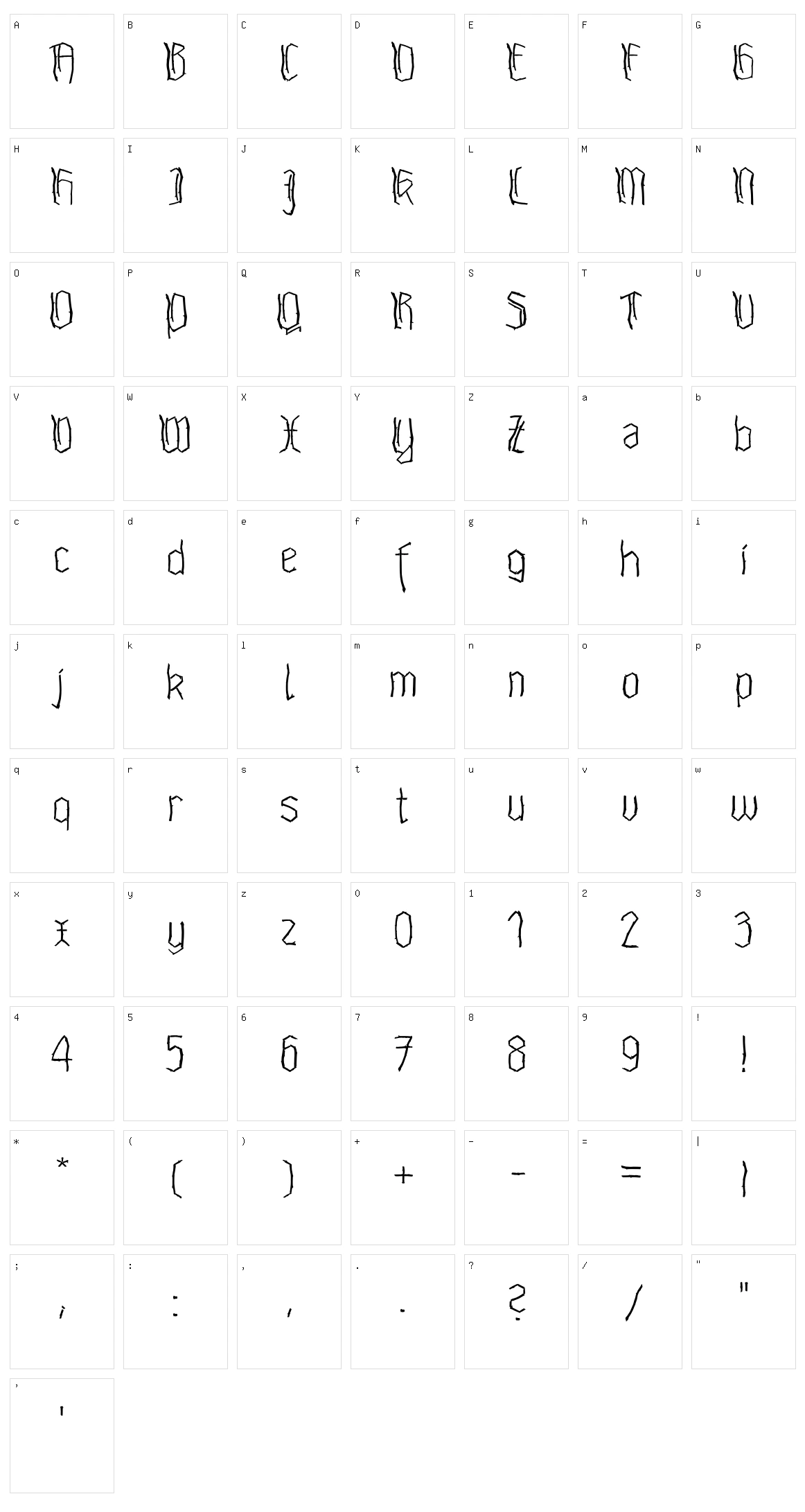
The free font Waldschraz is carefully designed by Fabian Kirst, showcasing a thoughtful balance of creativity and usability and belongs to the Gothic font family. When you download the ZIP file, it contains only 43.5 KB of font files, making it lightweight and quick to download. Please review the license details below to understand permitted usage and distribution rights. If license information is not available, we recommend using this font for personal projects only or contacting the author directly for commercial usage permissions.